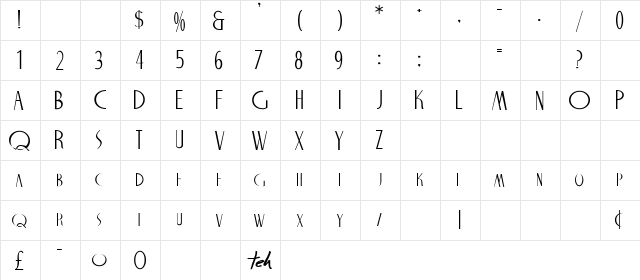
Nite Regular
Design Context for Nite Typeface
Nite is a composed and adaptable typeface that performs quietly and consistently across a wide range of design contexts.